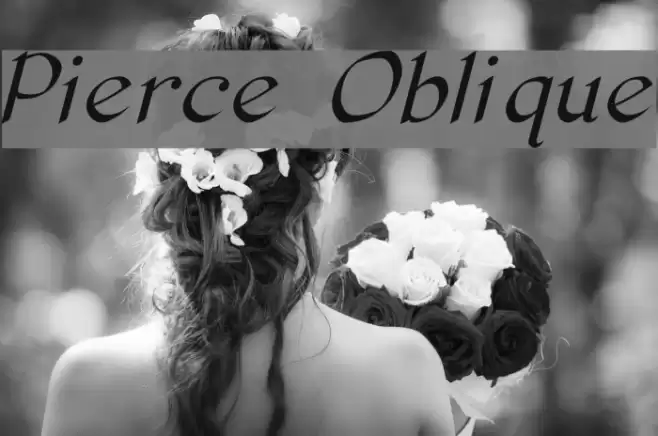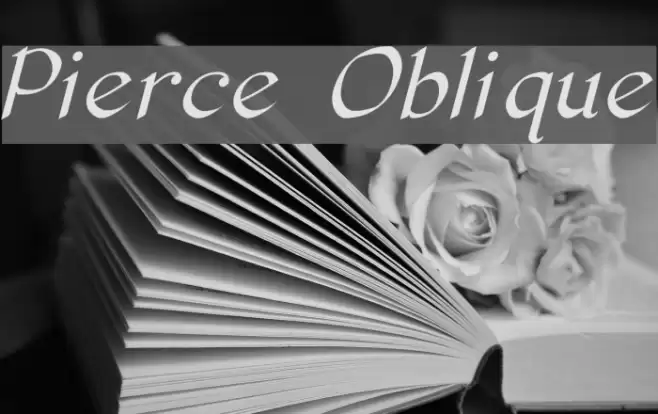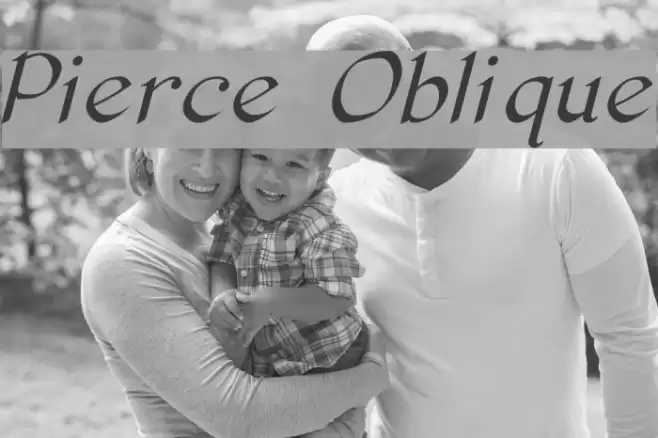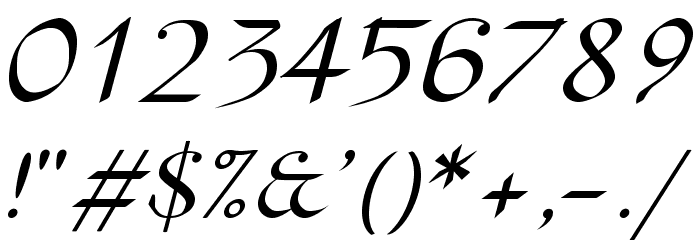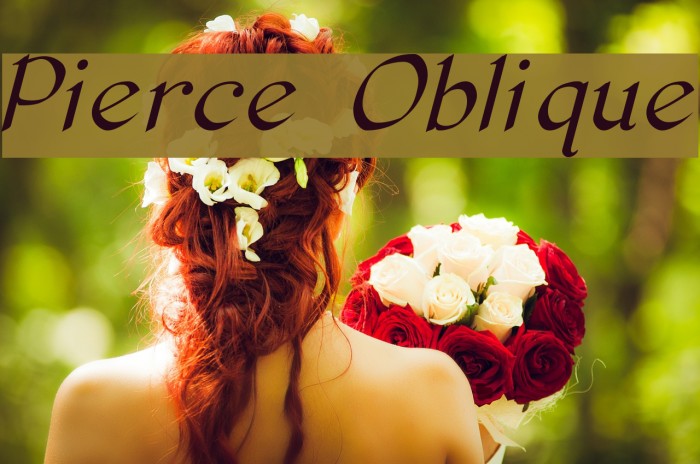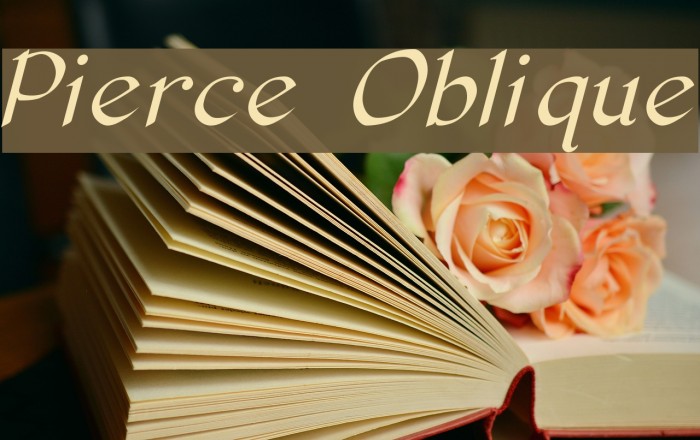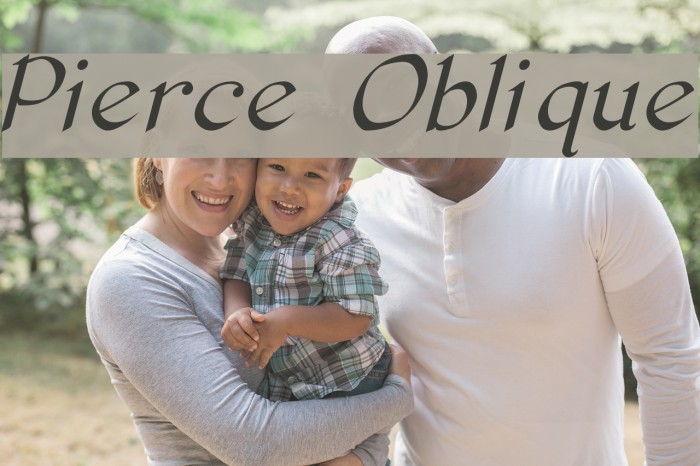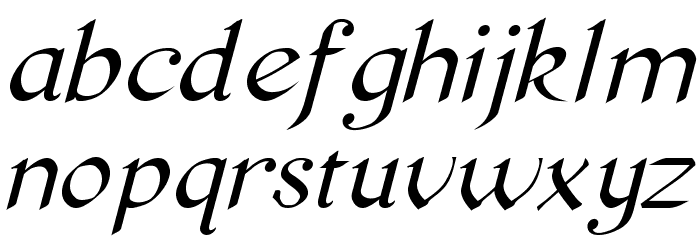
Pierce Oblique Font
Pierce Oblique Description
This font features an elegant and dynamic oblique style, characterized by its slanted and flowing letterforms. The strokes are smooth and slightly curved, giving it a sense of motion and fluidity. The uppercase letters are bold and prominent, while the lowercase letters maintain a consistent slant, creating a harmonious balance. The numerals are clear and distinct, with a slight tilt that matches the overall style. Special characters are designed with the same attention to detail, ensuring a cohesive look across all glyphs. This font is ideal for projects that require a touch of sophistication and elegance.
An elegant oblique font with smooth, flowing letterforms and a dynamic style from Uncategorized fonts.
- Proposed Projects: Ideal for wedding invitations, elegant branding, fashion magazines, and luxury product packaging.
- Overall Style: Elegant
- Use Case: Headlines, Invitations, Branding